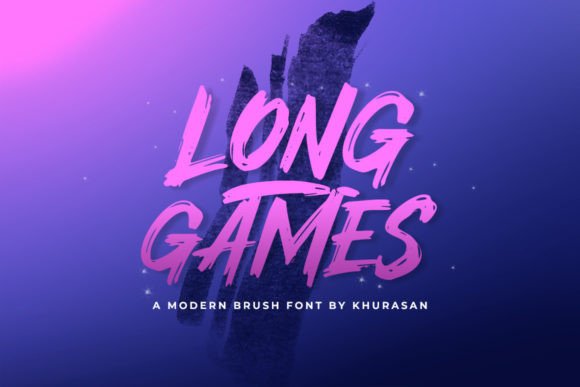
Introducing the Long Games Font, the ultimate script font designed to bring your creative projects to life! Created by Khurasan, this font family is perfect for those looking for the ideal Font For Invitation Wedding.
With its modern brush strokes and quirky design, Long Games is the perfect font to use for posters, logos, magazines, book covers, banners, and so much more! This unique display font adds a touch of personality and creativity to any design project, and will surely make your work stand out from the rest.
Whether you're a professional designer or just starting out, Long Games is easy to use and comes with a variety of styles to suit your needs. Its versatile nature allows you to create an endless array of designs, making it the perfect font for all your creative endeavors.
So why choose Long Games Font? Not only does it offer a fresh and modern feel to your designs, but it also brings a touch of emotion and creativity to your work. Its brush strokes and quirky design make it the perfect choice for those looking to add a personal touch to their projects.
Long Games Font is a must-have for anyone looking to create stunning designs that stand out from the crowd. With its Font For Invitation Wedding keyword, this font family is the perfect choice for anyone looking to create beautiful and unique wedding invitations.